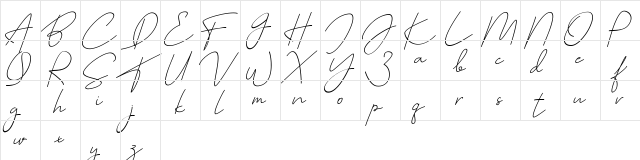
Cutyle Monoline Script Demo Regular Font Preview
Cutyle Monoline Script Demo Regular
Design Context for Cutyle Monoline Script Demo Typeface
Cutyle Monoline Script Demo brings a calligraphic fluidity to the page — its connecting strokes and expressive curves give it an unmistakably human quality.
Font Pairing: Combine Cutyle Monoline Script Demo with a simple geometric sans for maximum contrast — the tension between flowing curves and clean structure is a classic typographic pairing.
Pro Tip: Use Cutyle Monoline Script Demo for short runs of text — names, titles, or taglines. Extended body copy in script faces tires the eye quickly.